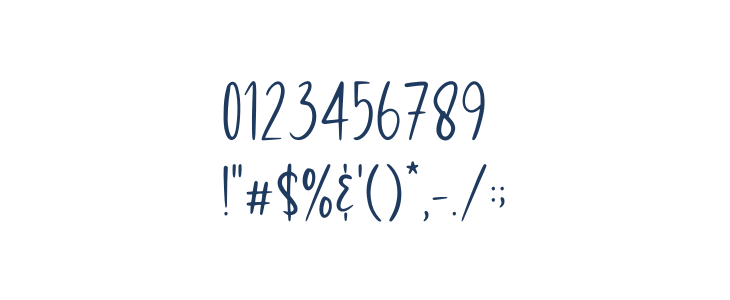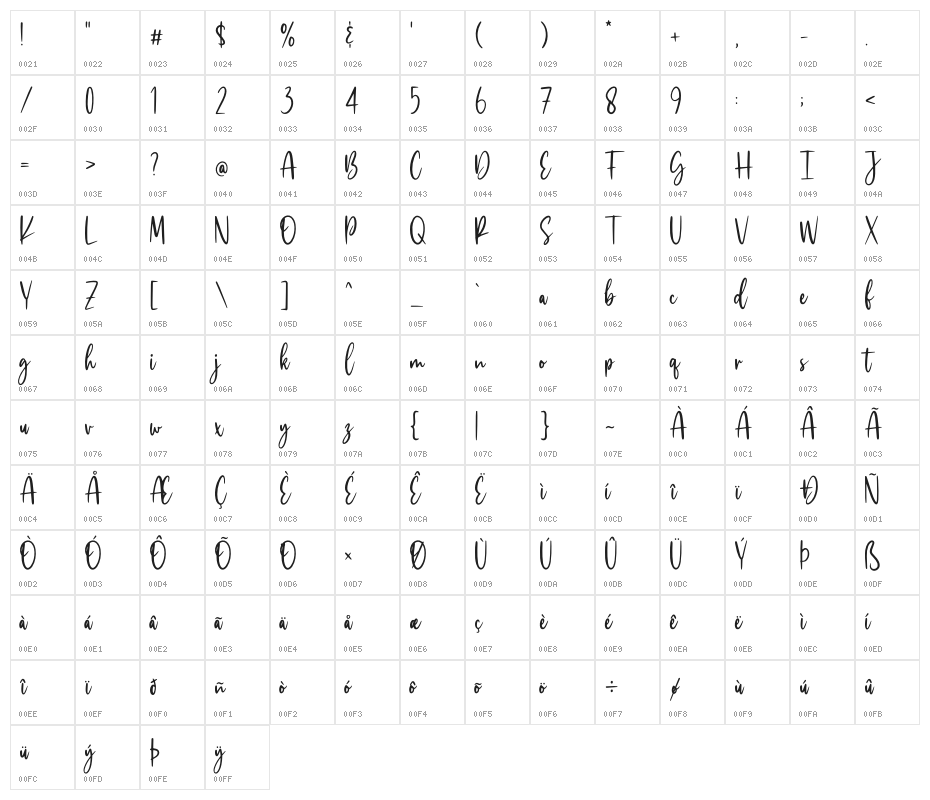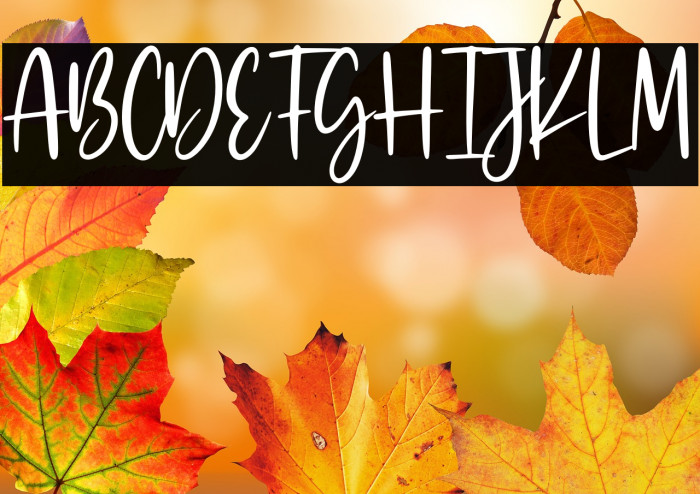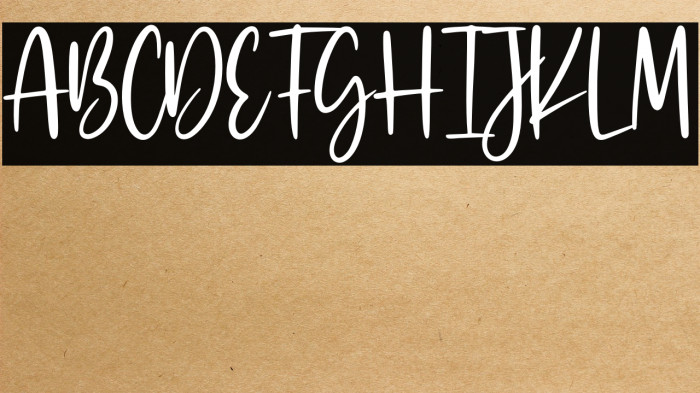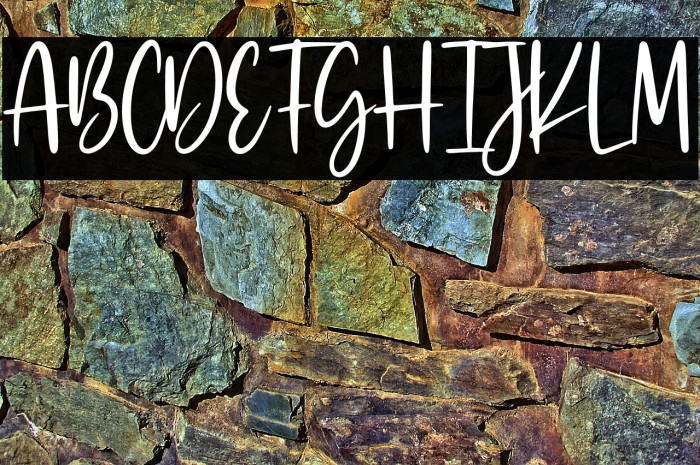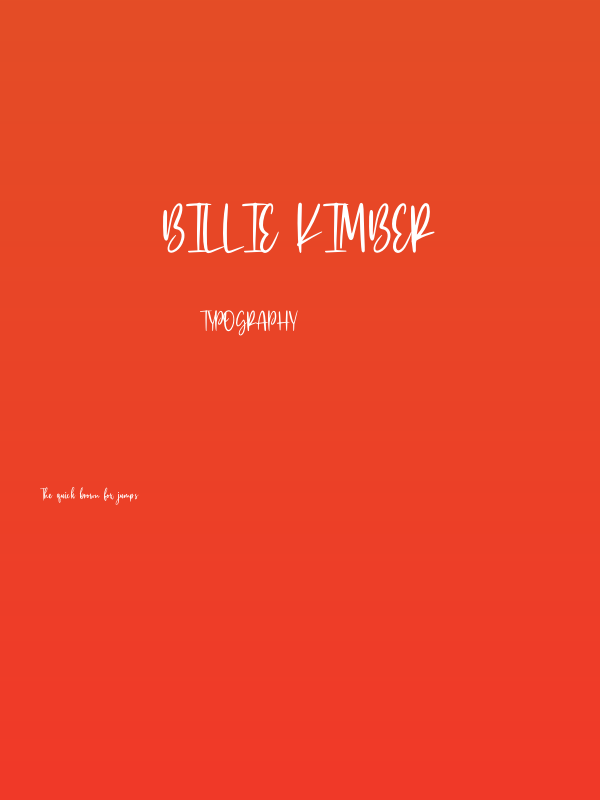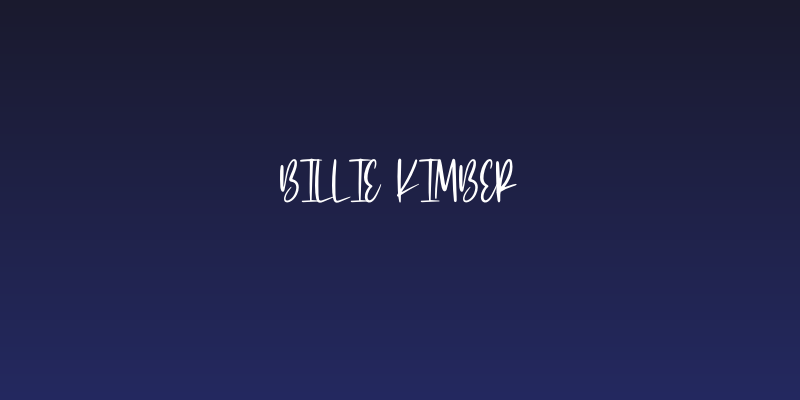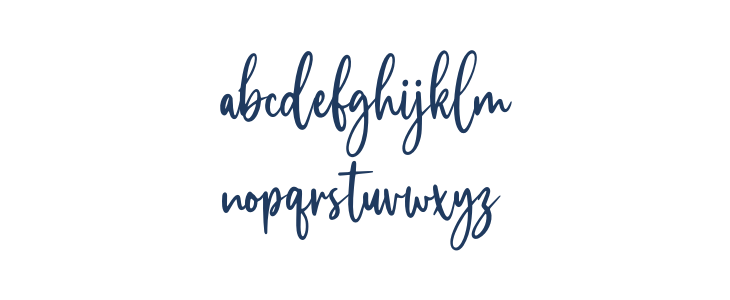
Billie Kimber Font
Billie Kimber Description
This font exhibits a lively and dynamic handwritten style, characterized by its fluid and organic strokes. The uppercase letters are bold and slightly condensed, giving a sense of energy and movement. The lowercase letters maintain a consistent flow, with some characters featuring playful loops and curves. The numerals are clear and legible, matching the overall aesthetic of the font. Special characters are well-integrated, maintaining the same handwritten charm. This font is perfect for projects that require a personal touch, such as invitations, greeting cards, or branding materials that aim to convey warmth and approachability.